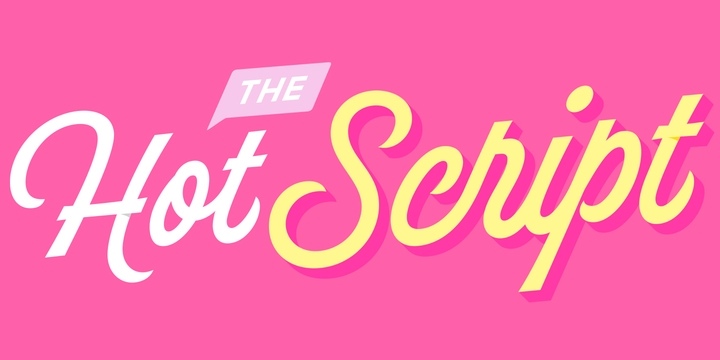
Hot Script Font
Hot Script Font is perfect for spicy restaurant branding, hot sauce packaging, fiery food truck graphics, chili pepper festival marketing, spicy cuisine cookbooks, salsa dance studio signage, tropical vacation promotions, and passionate romance novel covers where heat and intense flavor are emphasized.
What makes Hot Script Font so exciting is its sizzling ability to convey passionate intensity and fiery energy through dynamic script letterforms that embody the excitement and bold flavor of spicy experiences while maintaining excellent readability for energetic communications. The heated character design reflects the vibrant energy and intense passion that defines memorable hot and spicy encounters.
The Hot Script Font family includes regular, bold, and extra bold weights, with flame-inspired script variants and spicy ornamental elements that provide comprehensive tools for creating authentic heat-themed branding and passionate design systems.
This dynamic typeface captures the essence of fiery passion, combining intense energy with contemporary food industry and entertainment requirements. The Hot Script Font Free Download gives spicy brands access to typography that communicates bold flavor and passionate excitement.
The font's flowing character movements and energetic proportions create immediate associations with spicy foods and passionate experiences. Each letterform has been designed to evoke the heat and intensity that defines memorable spicy cuisine and exciting entertainment venues.
Hot Script Font excels in creating memorable brand identities that ignite customer excitement and communicate bold flavor experiences. The typeface's passionate character makes it ideal for restaurants, food manufacturers, and entertainment venues emphasizing intense flavors and exciting experiences.
From Mexican cantinas to hot sauce producers, this font brings fiery authenticity that appeals to customers seeking bold flavors and passionate experiences. The versatile design maintains its heated character across both traditional food service applications and modern digital spicy brand platforms.